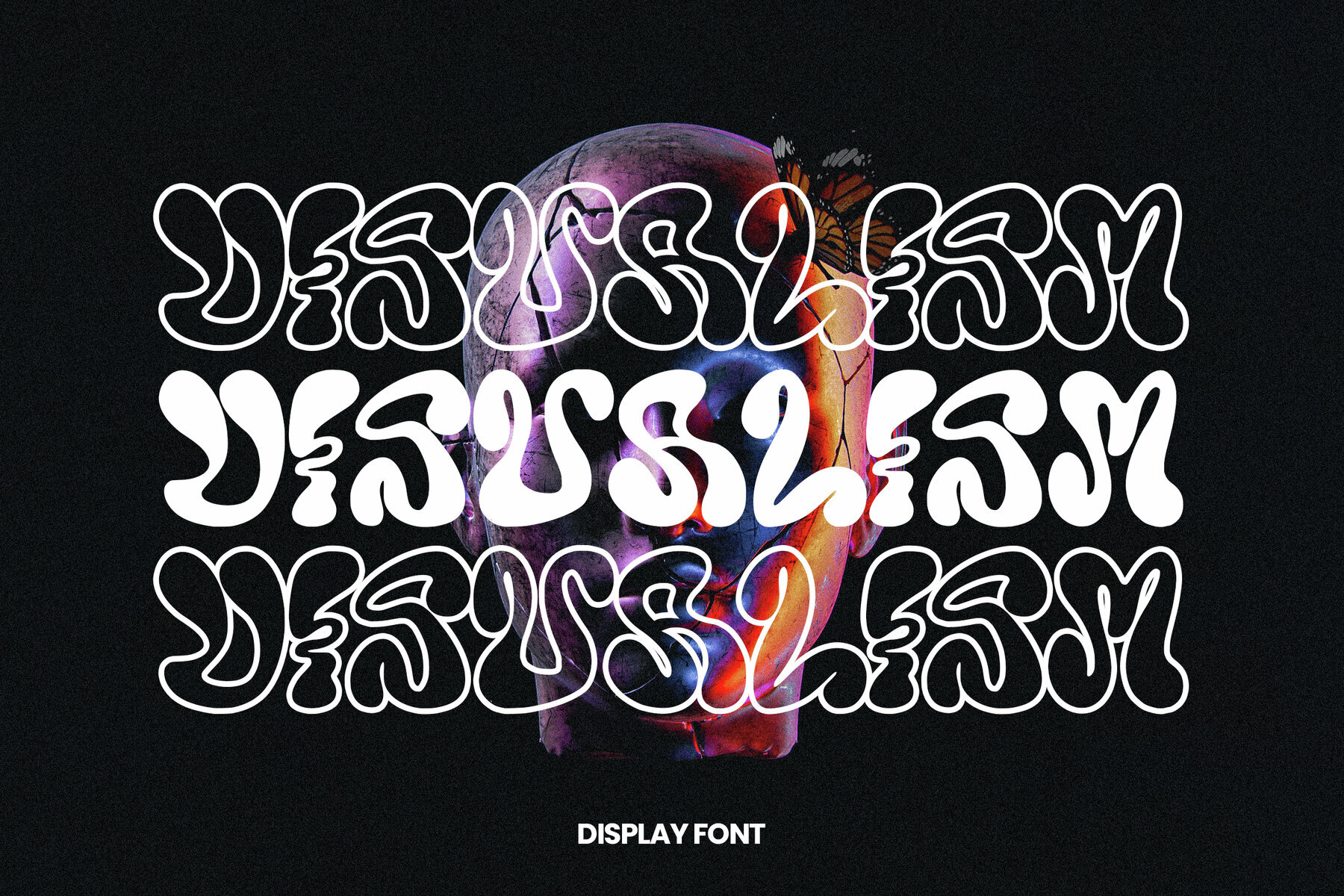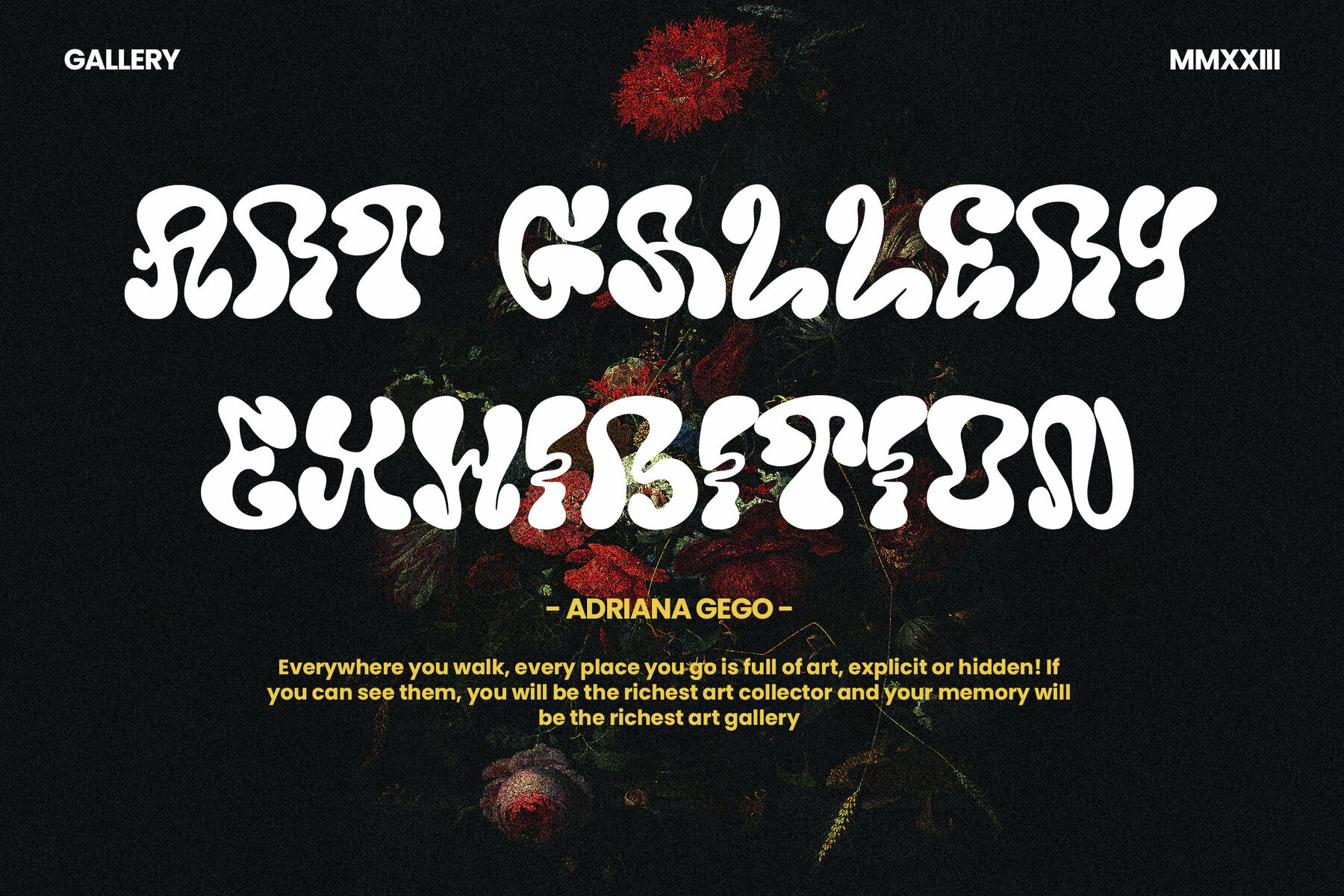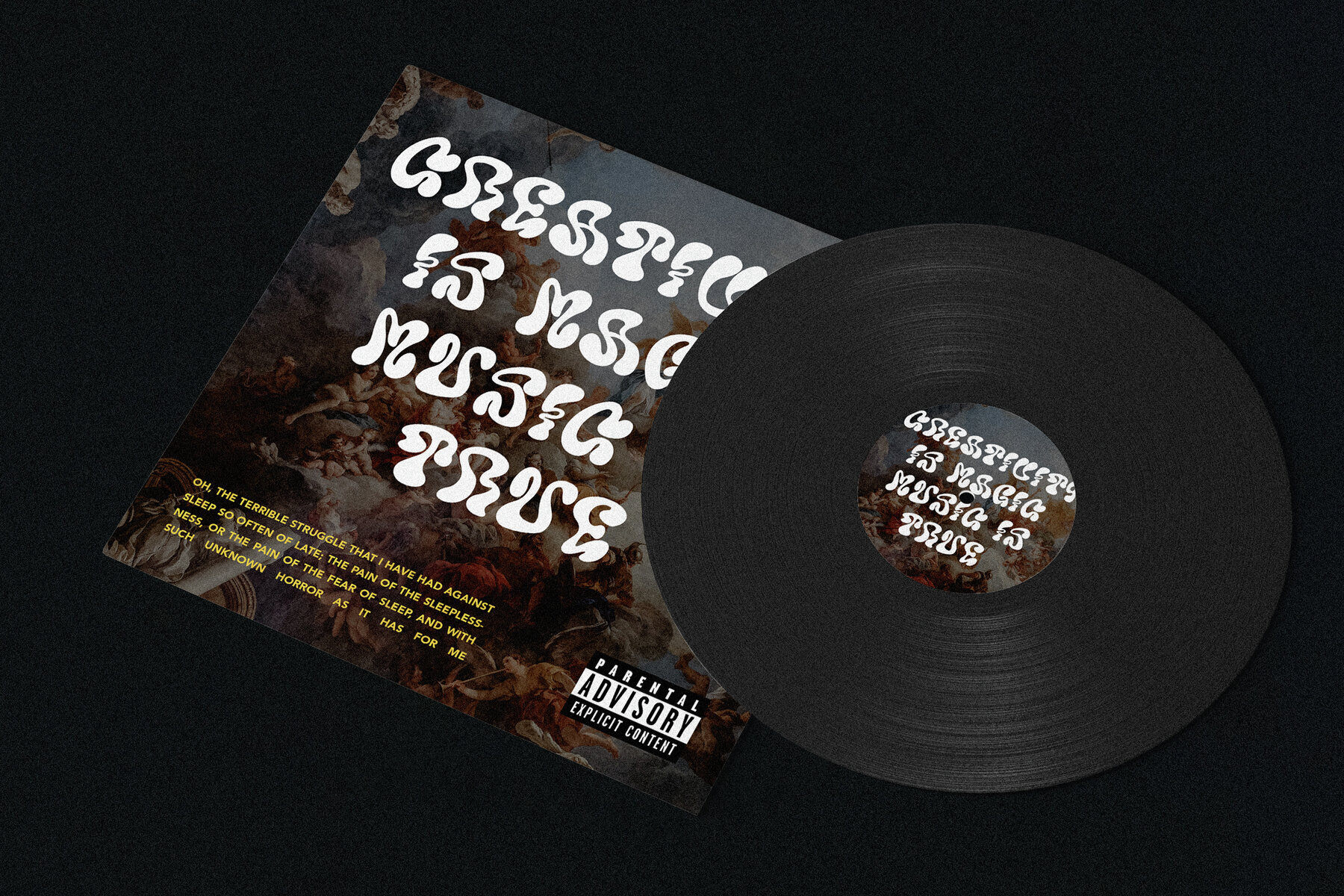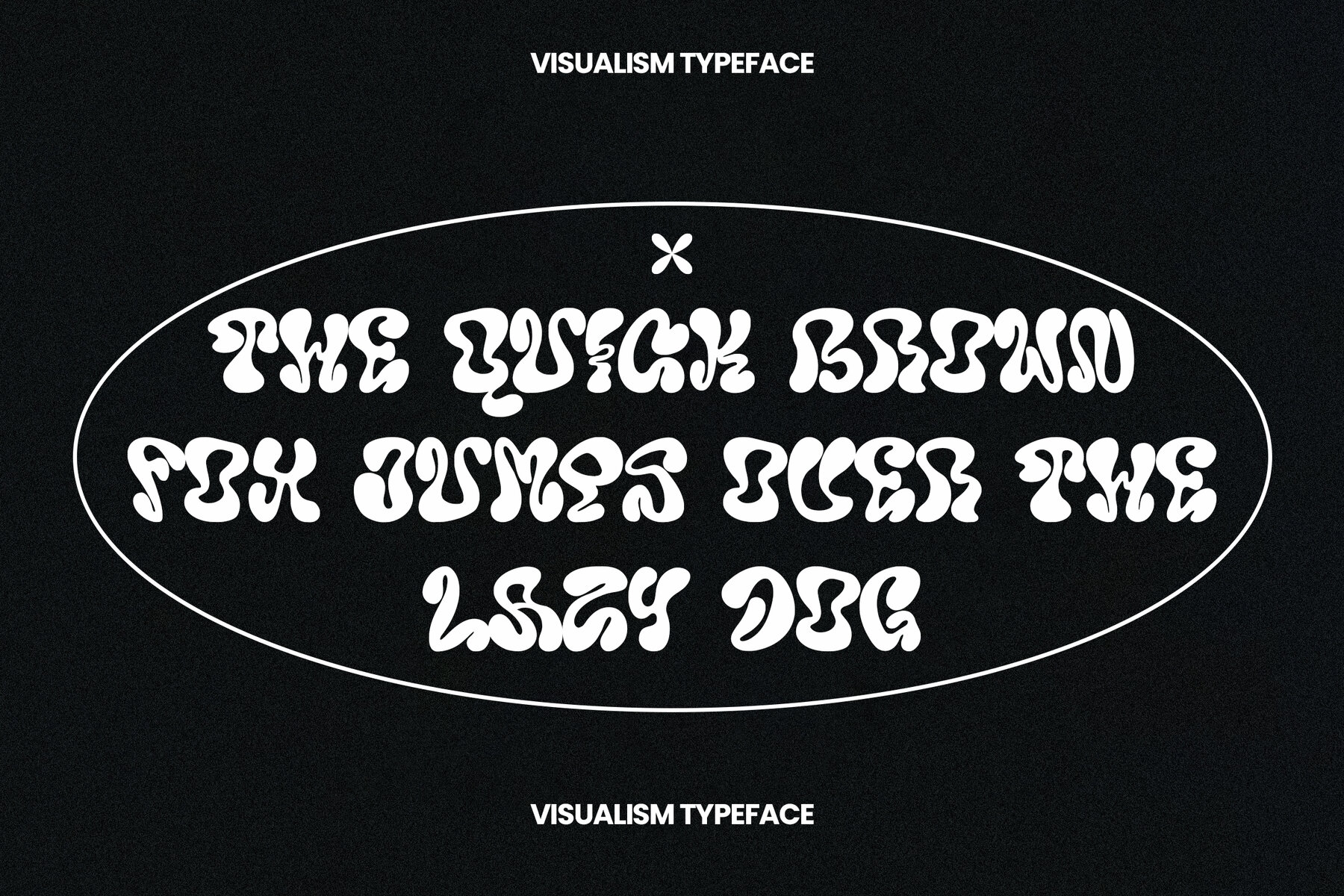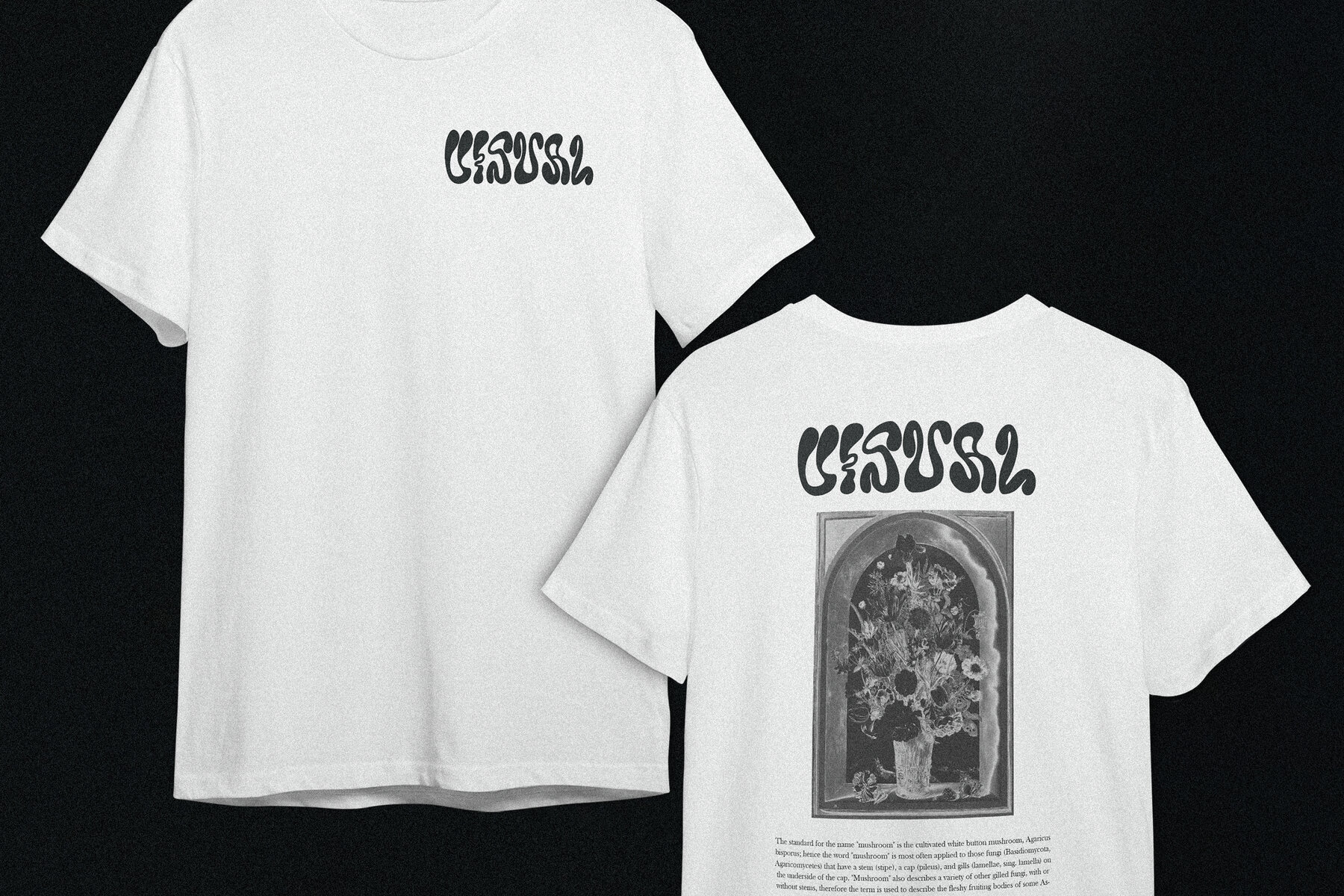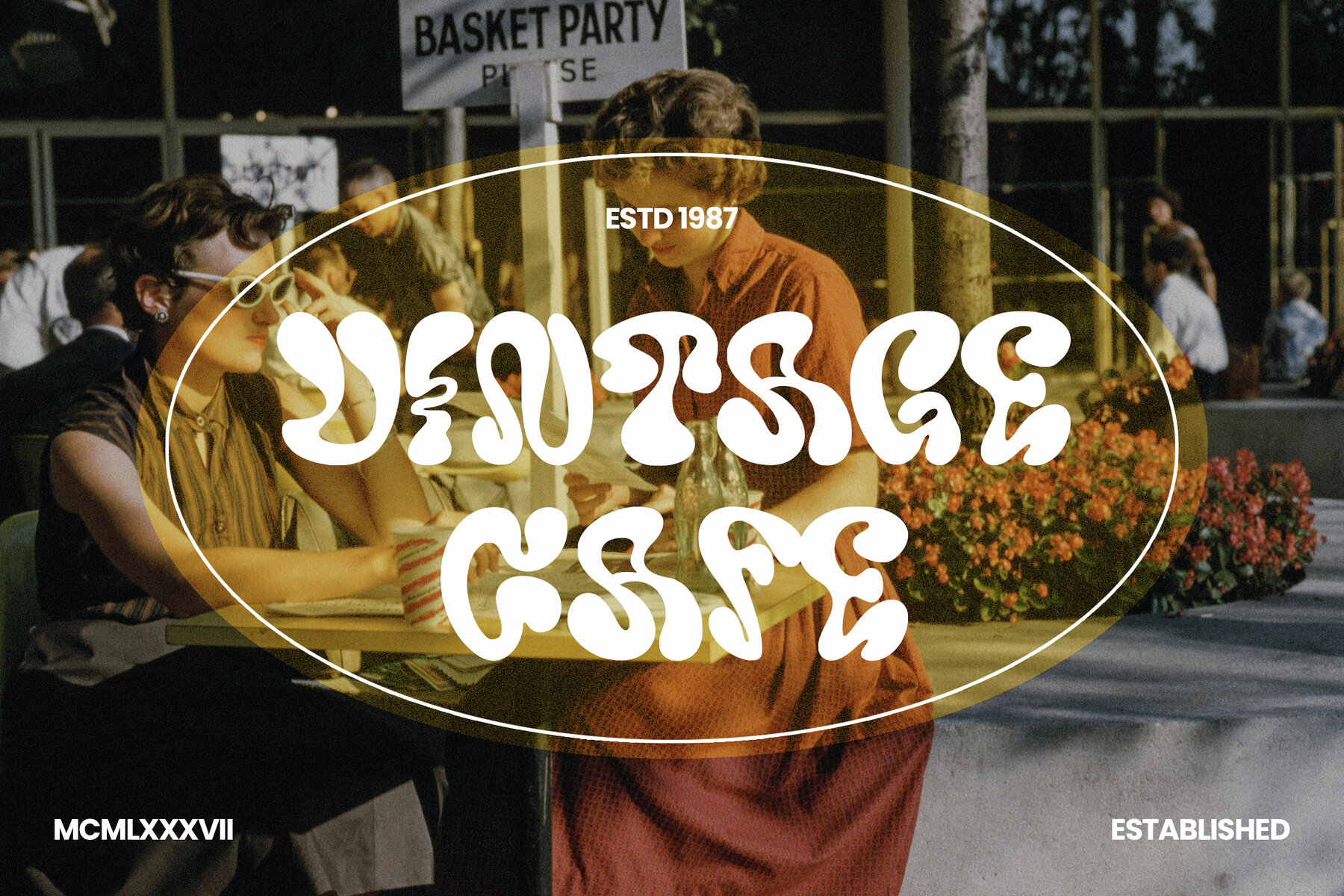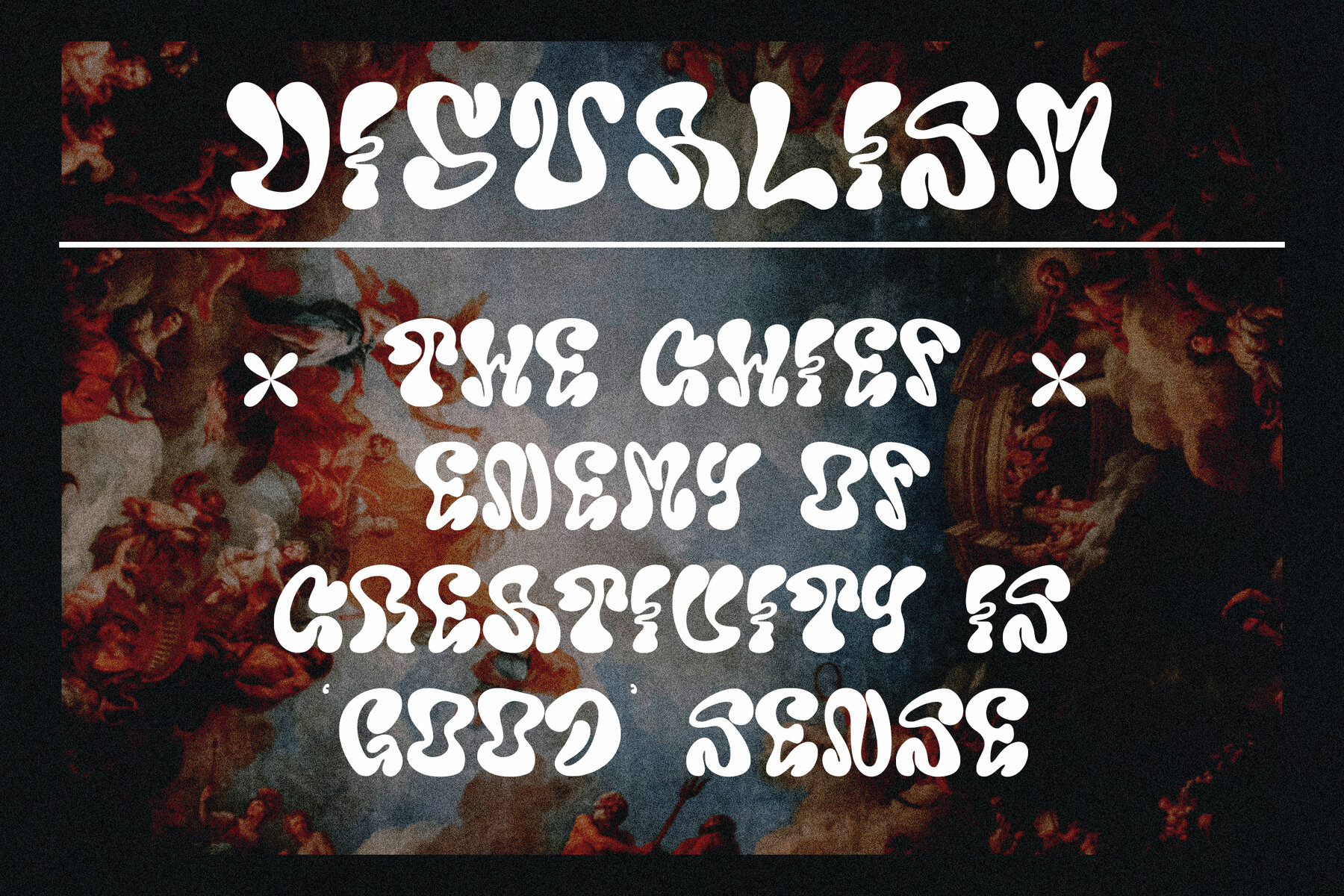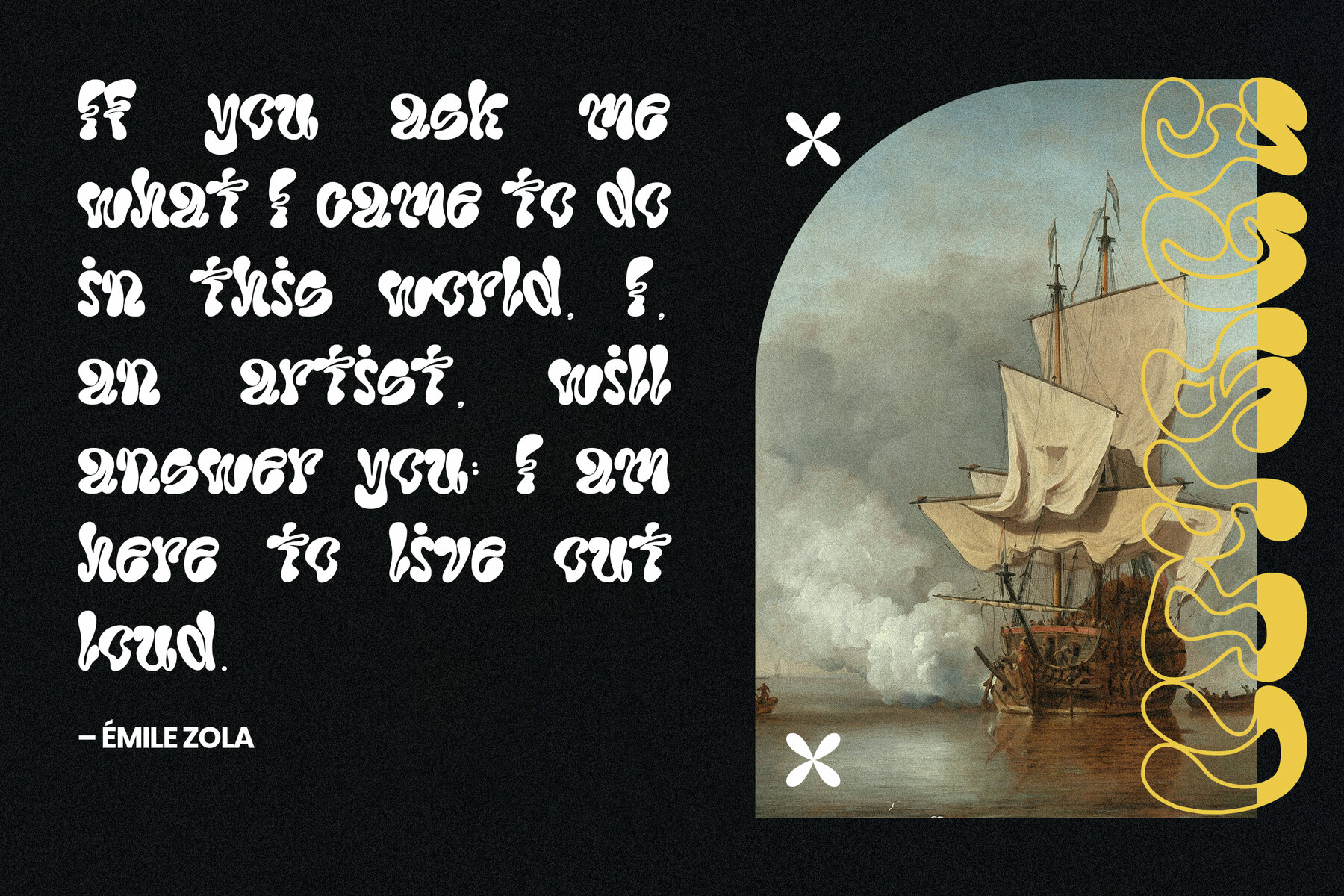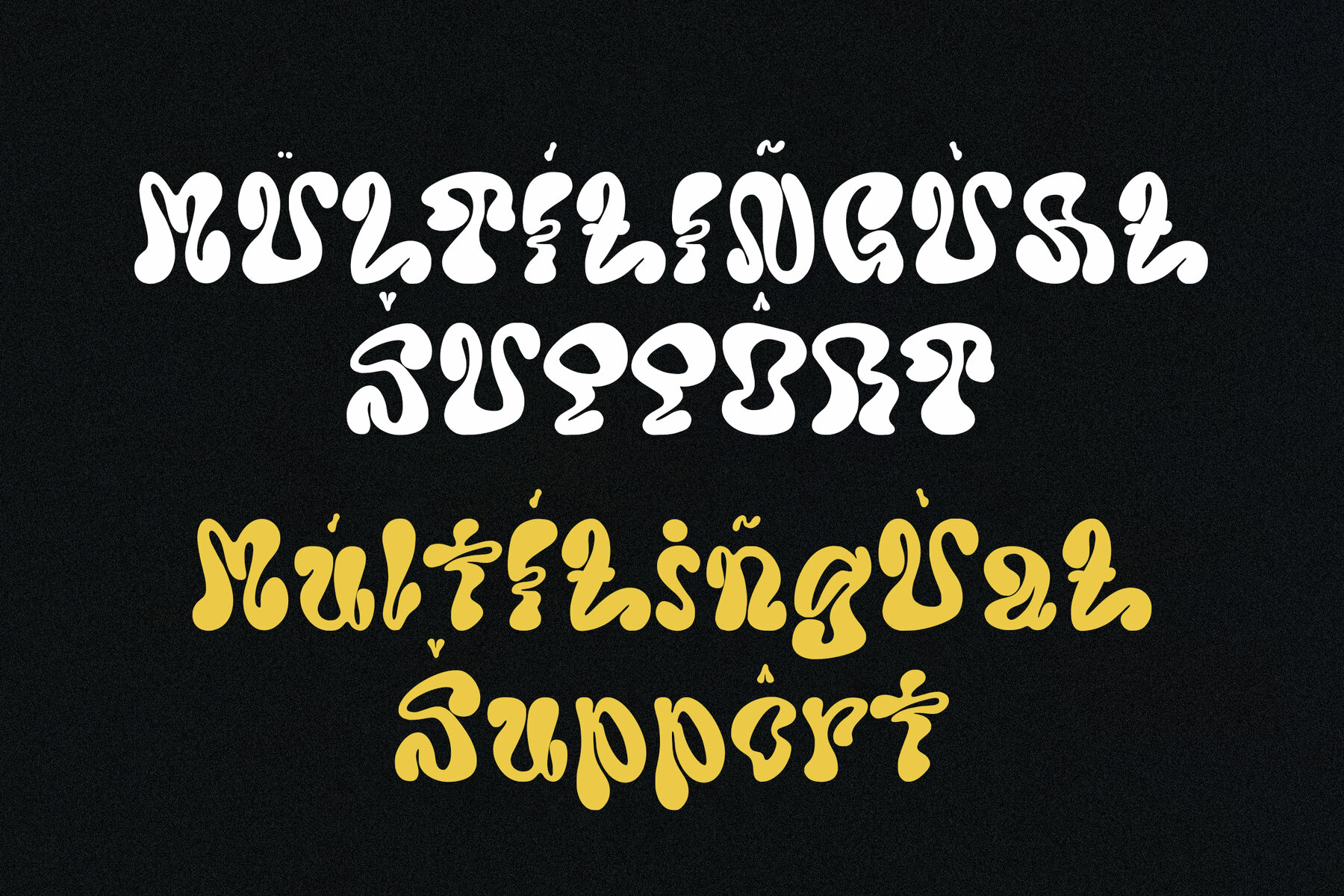
Visualism Font
Visualism
Visualism Font embodies the essence of street art, capturing a sense of freedom with its unique and expressive characters. Designed with the dynamic spirit of urban creativity, Visualism offers a distinct style that stands out in design projects.
This versatile font includes a full character set from A-Z, providing comprehensive support for a variety of design needs. It also features numerals and punctuations crafted to OpenType standards, ensuring compatibility and ease of use across platforms. Multilingual accents are included, making Visualism suitable for a global audience and diverse projects.
Whether crafting eye-catching posters, edgy branding, or dynamic digital content, Visualism Font provides the tools you need to infuse your work with a bold, artistic flair. Its unique style makes it ideal for projects seeking a modern, yet raw and authentic street art aesthetic.